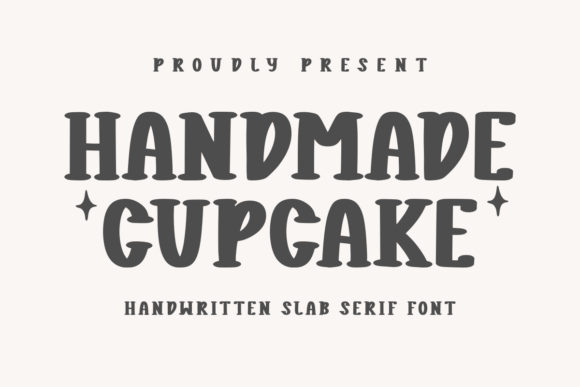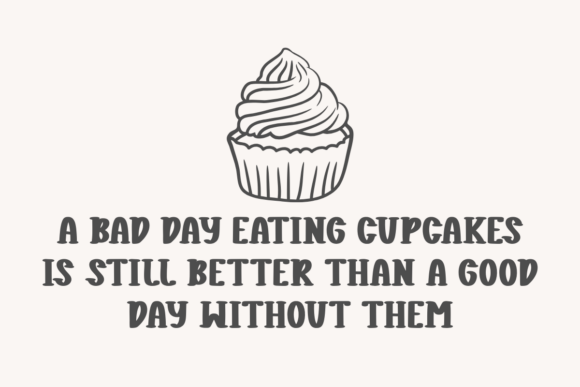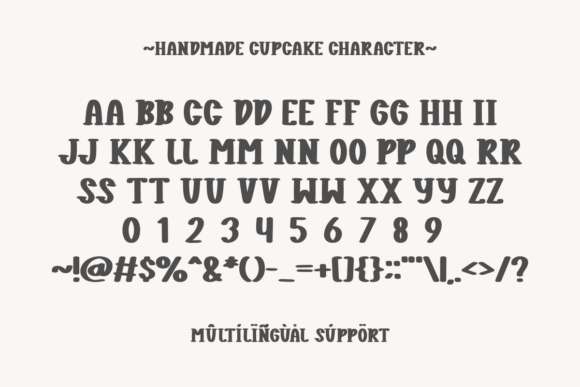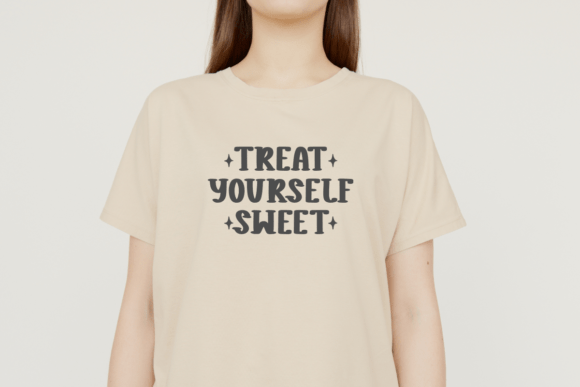
Handmade Cupcake Font
About the Handmade Cupcake Font
We are excited to introduce Handmade Cupcake Font, a must-have typeface for any serious designer. Handmade Cupcake is a cute and bold slab serif font, perfect for planners, stickers, cards, quotes, and craft projects. Ideal for creative moms who love DIY, journaling, and Cricut crafts!
Its strong, friendly personality makes it ideal for branding projects targeting a younger demographic, particularly those related to food, crafts, or children’s products. It also works well in short headlines, packaging design, and social media graphics where its bold, playful nature is an asset. However, avoid using it for extensive body text or user interfaces; its slab serifs can hinder readability in larger blocks of text.
Pair Handmade Cupcake with a clean sans-serif like Open Sans for a balanced contrast, or a script font like Great Vibes for a more whimsical feel. A geometric sans-serif such as Montserrat can provide a modern counterpoint, emphasizing the font’s playful boldness. Consider a simple serif like Lora for a classic, grounded pairing that helps offset the font’s casual energy.
Handmade Cupcake Font Usage Examples
Handmade Cupcake Font Example